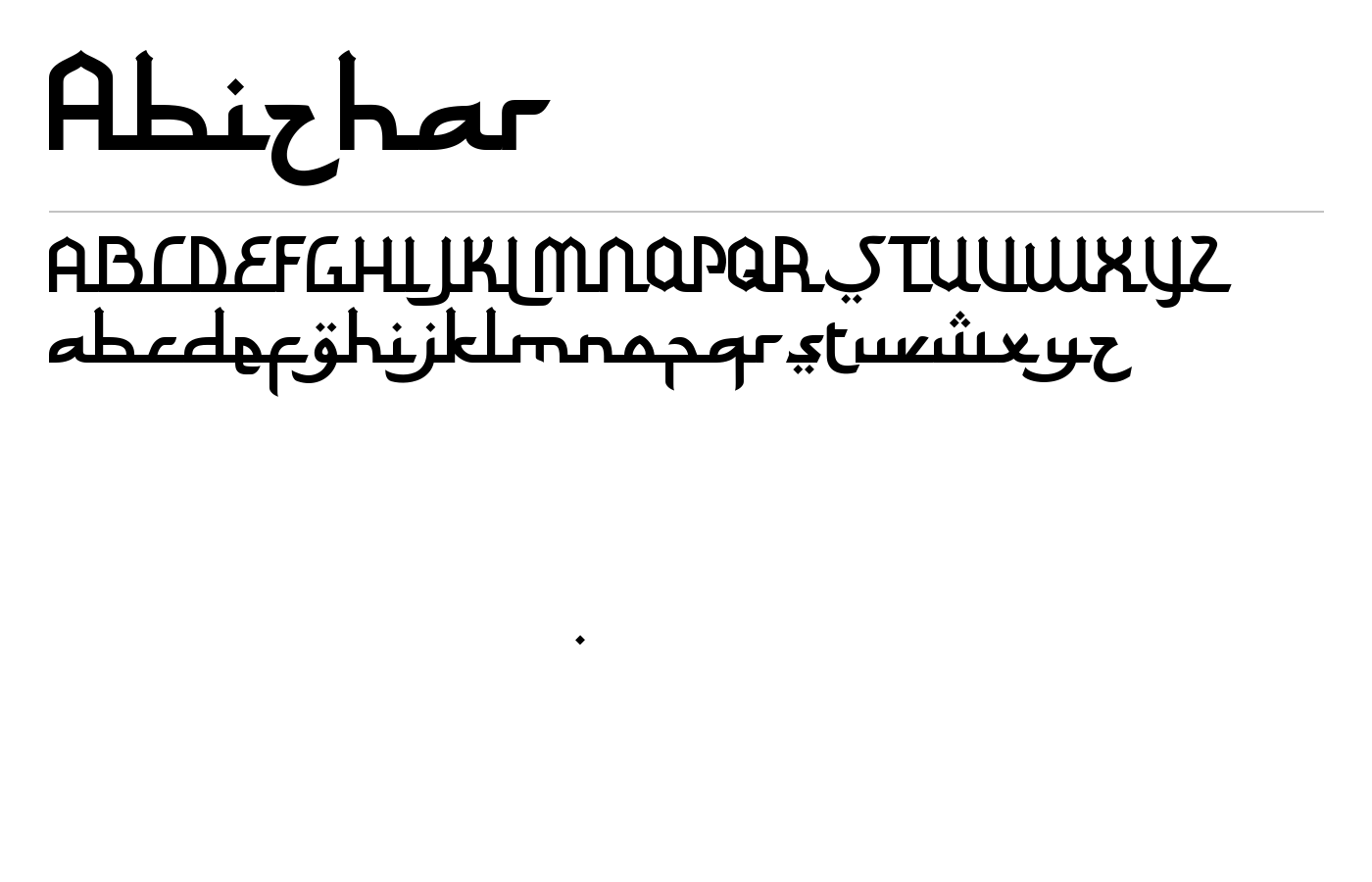
Abizhar is a unique sans serif font with a condensed, geometric style that blends modernity with subtle calligraphic influences. Its medium weight and moderate contrast create a balanced look, featuring distinct letterforms such as single-story 'a' and stylized tails that add character and visual interest. Ideal for logos, headlines, and creative branding, Abizhar delivers a contemporary and stylish personality that stands out in editorial and digital design contexts.
Abizhar Font